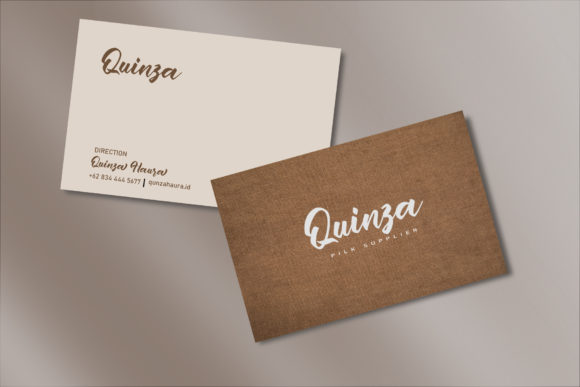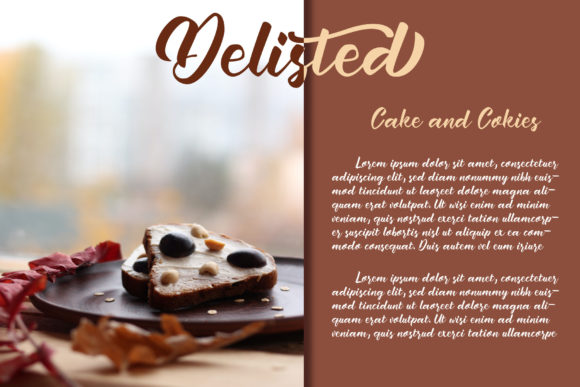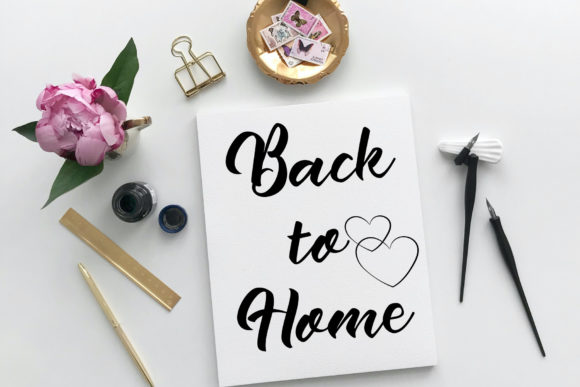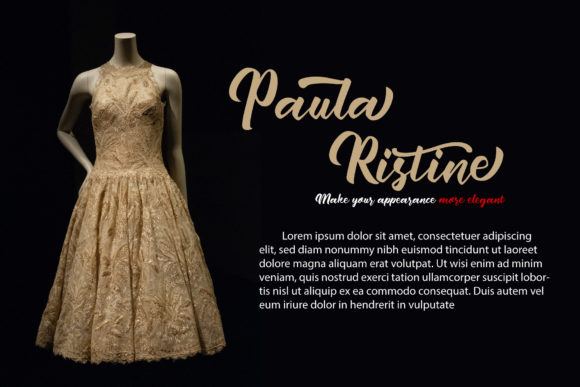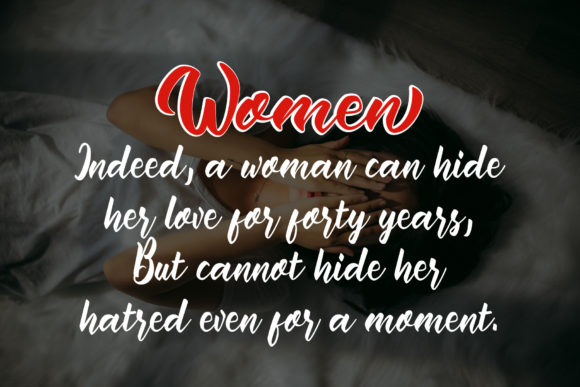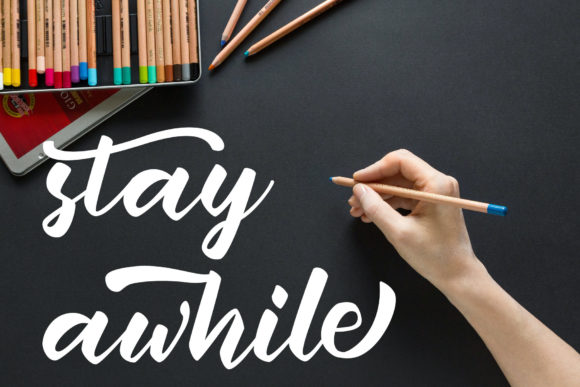
Unleashing the Flair of Your Designs with Butter Font
Have you ever sat down with a blank page or screen, staring at the void, waiting for inspiration to strike? That’s exactly what happened to me last week. I was brainstorming ideas for a new project, and I wanted my design to stand out from the crowd. As I browsed through my font library, one font caught my eye – the stunning Butter Font.
Butter Font is a beautiful, stylish handwritten font that’s perfect for adding a touch of elegance to your designs. Whether you’re a graphic designer, a digital artist, or a crafter, this font is sure to impress. With its PUA encoding, you can easily access all the glyphs and swashes, giving you endless possibilities for creativity.
Butter Font Key Features
- Unique Characteristics: The Butter Font features a distinctive, rounded design with subtle flair and a friendly feel, making it suitable for various design projects, including logos, typography, and branding materials.
- Character Set: The font includes a comprehensive character set, including Latin, Cyrillic, and Greek alphabets, as well as punctuation marks and symbols.
- Font Weight: The Butter Font is available in 6 different font weights, ranging from Light to Bold, offering flexibility for various design applications and styles.
Butter Font Review
First of all, I want to say that I really enjoy the friendly, approachable vibe of the Butter Font. ✨ It’s got a unique character that’s perfect for creating a sense of warmth and approachability in your designs. The rounded edges and soft lines make it feel really inviting and easy to read.
- ✨ Friendly and approachable vibe
- ✨ Easy to read and understand
- ✨ Unique character that sets it apart
However, I do have a few concerns about the limitations of the Butter Font. ⚠️ While it’s great for creating a friendly vibe, it may not be the best choice for more formal or professional projects. Additionally, the font can feel a bit too playful or childish at times, which may not be suitable for every audience.
- ⚠️ Limited versatility for formal or professional projects
- ⚠️ May feel too playful or childish for some audiences
Overall, I think the Butter Font is a solid choice for designers looking to create a friendly and approachable vibe in their designs. While it may not be the best choice for every project, it’s definitely worth considering for the right kind of job.
The Butter Font is ideal for creating playful and whimsical designs. Use it for:
- Birthday invitations and party decorations.
- Children’s book illustrations and educational materials.